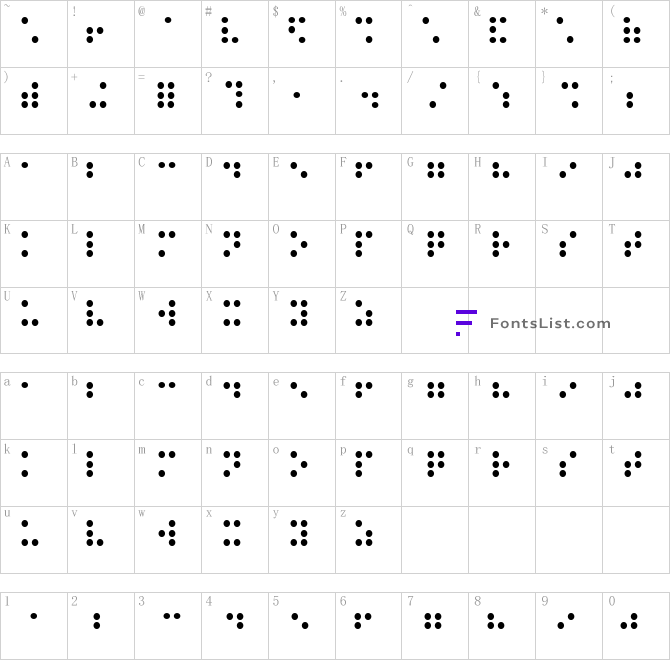
• Font Name:Balkan Peninsula Braille
• Subfamily:Balkan Peninsula Braille
• Full Name:Balkan Peninsula Braille
• Version:The ultimative Version for BiH, HR, MK, SLO & YU
Balkan-Peninsula-Braille.ttf is a very beautiful artistic font, Balkan-Peninsula-Braille.ttf is widely used in the design and printing of various books and pictures,Balkan-Peninsula-Braille.ttf has a strong visual impact,Balkan-Peninsula-Braille.ttf is a commonly used font in newspapers, magazines and books, and is used in posters, e-commerce Poster design, store design, logo design, font design and other fields.Balkan-Peninsula-Braille.